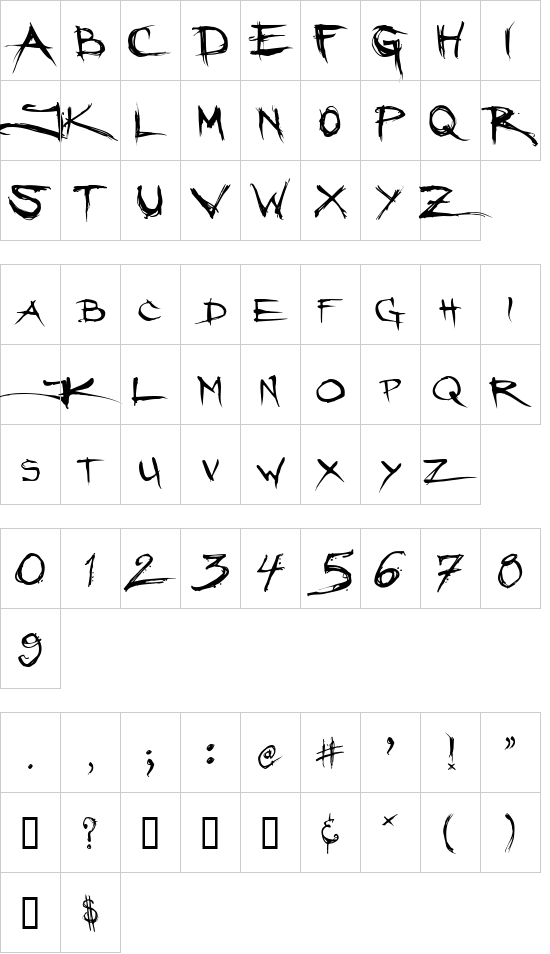
Angryblue is a raw brush-drawn font with frantic, hand-painted strokes and a horror-tinged intensity. The letters look slapped down at speed with a loaded brush, full of splatter, uneven weight, and aggressive energy. There is nothing tidy about it, and that messy, urgent quality is exactly the point.
It suits grunge and punk band posters, gig flyers, dark T-shirt graphics, and headlines that want an aggressive, handmade feel. The chaotic strokes read best at large display sizes. Angryblue is free to download as a TrueType file, and you can preview your own words to see how the brushwork lands before using it in a layout.